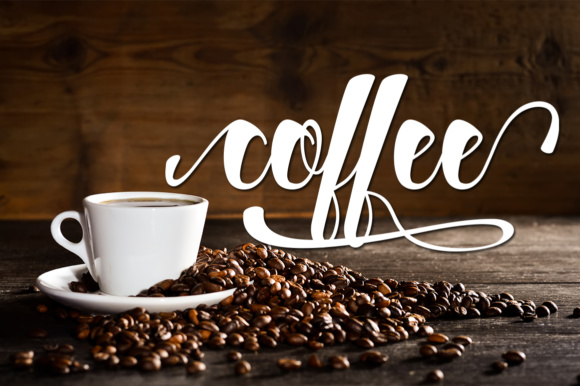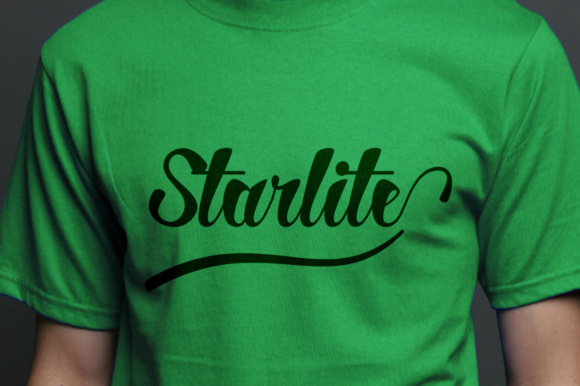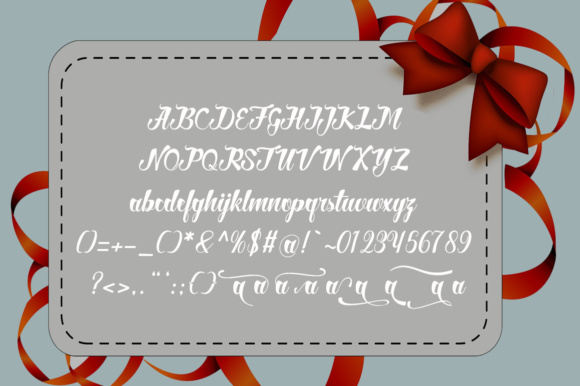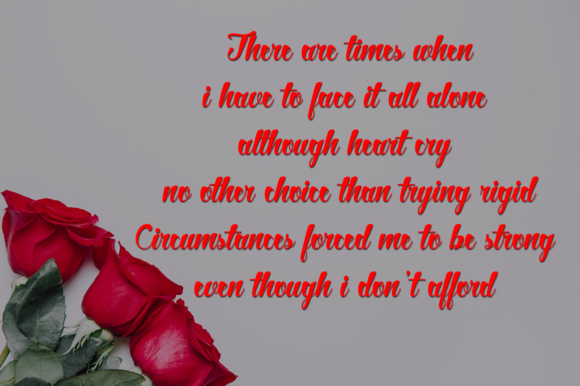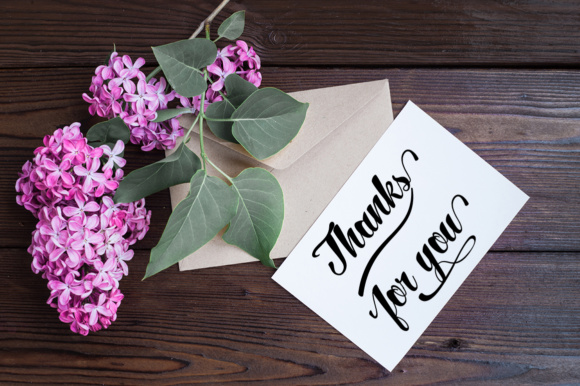
New Greand Font
About New Greand Font
New Greand Script has a fresh & modern style and has handmade calligraphy, decorative characters and dancing lineage! Can be used for invitations, branding material, business cards and much more!